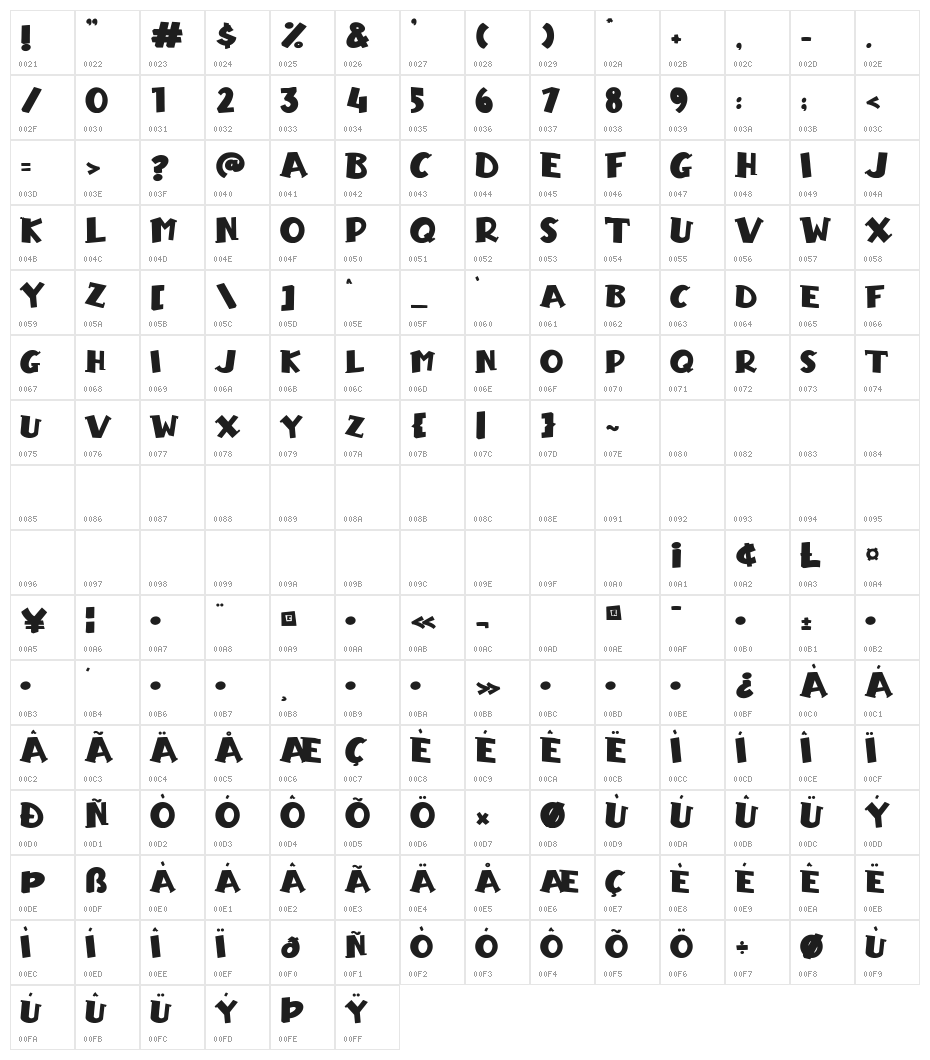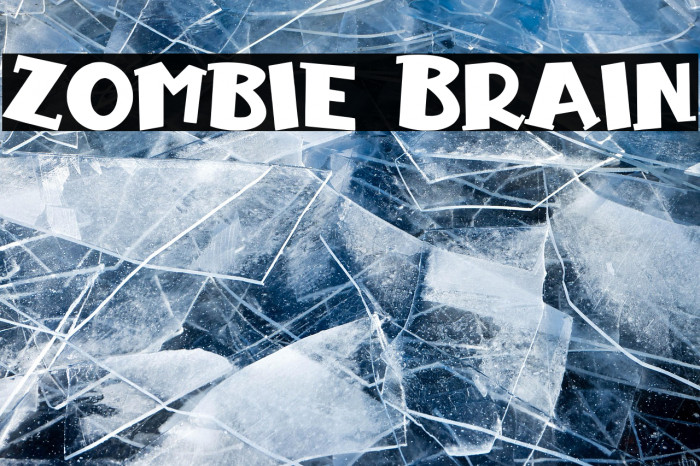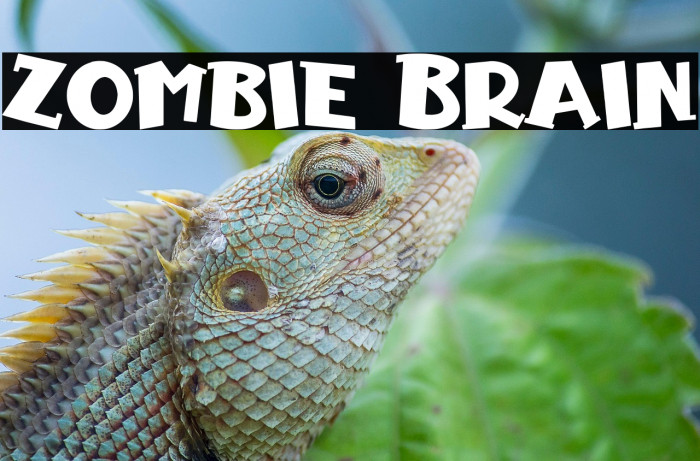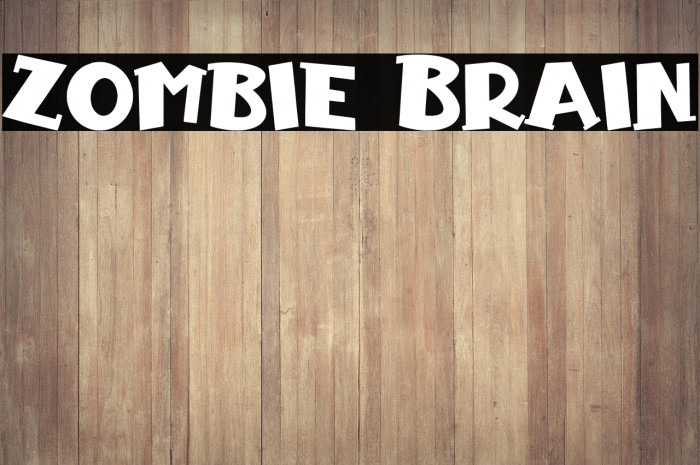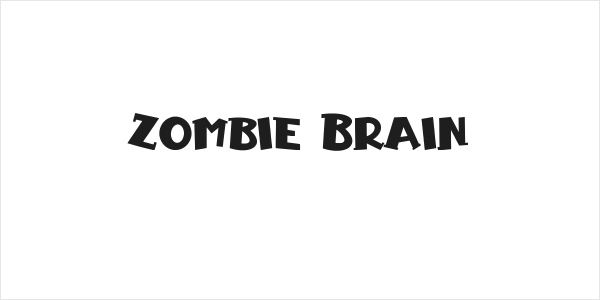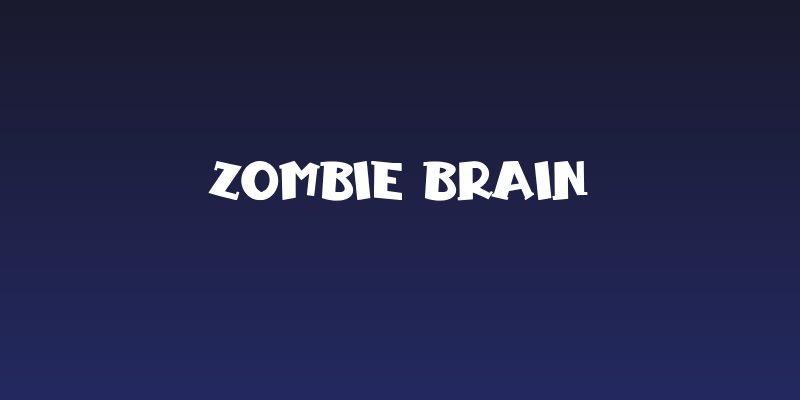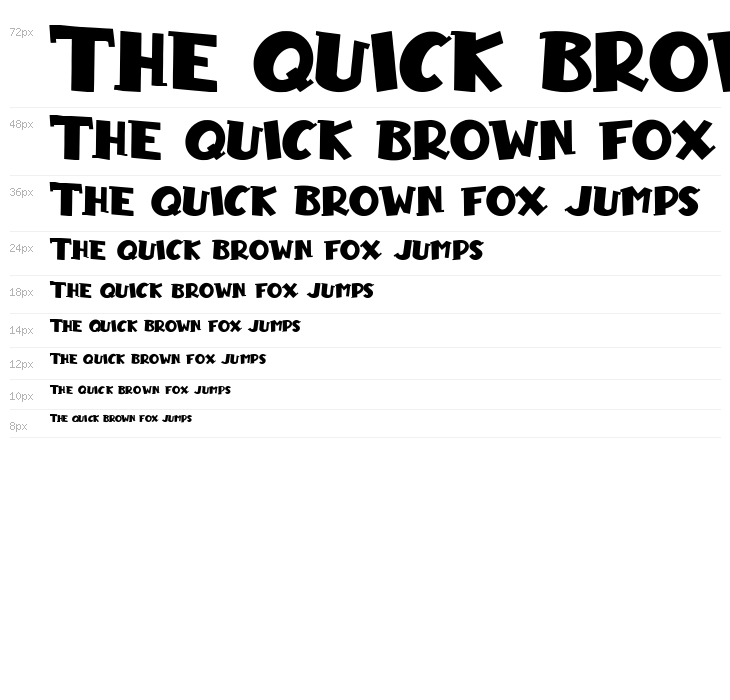
Zombie Brain Font
Zombie Brain Description
This font features a playful and quirky design with bold, uneven strokes that give it a lively and energetic appearance. The characters are slightly irregular, adding a sense of movement and fun. The uppercase and lowercase letters maintain a consistent style, with exaggerated curves and angles that enhance its whimsical nature. The numbers and special characters follow the same playful theme, making it suitable for creative and informal projects. Its boldness and unique character shapes make it stand out, perfect for grabbing attention.
| Overall Style | Playful, Quirky, Energetic |
| Proposed Projects | Ideal for children's books, comic strips, party invitations, and playful branding. |